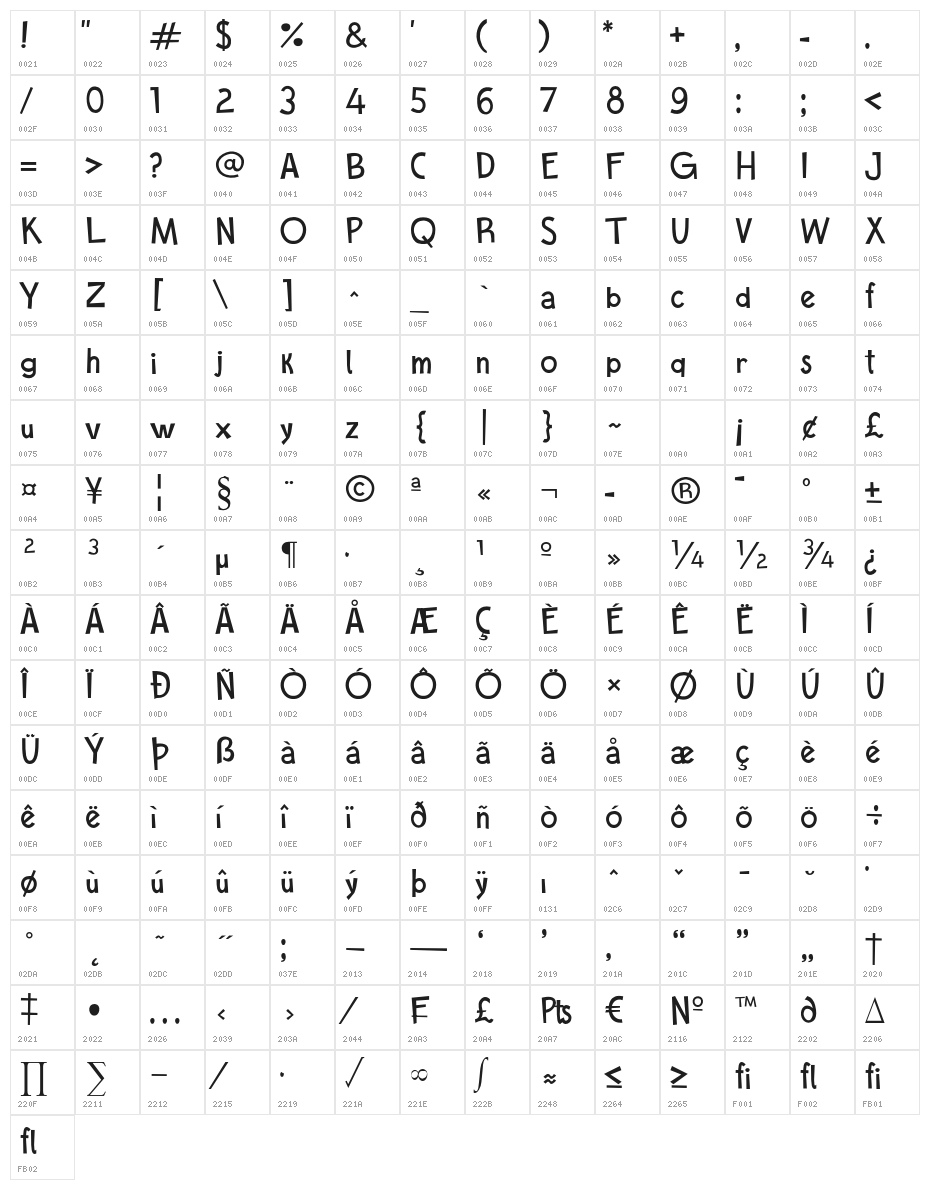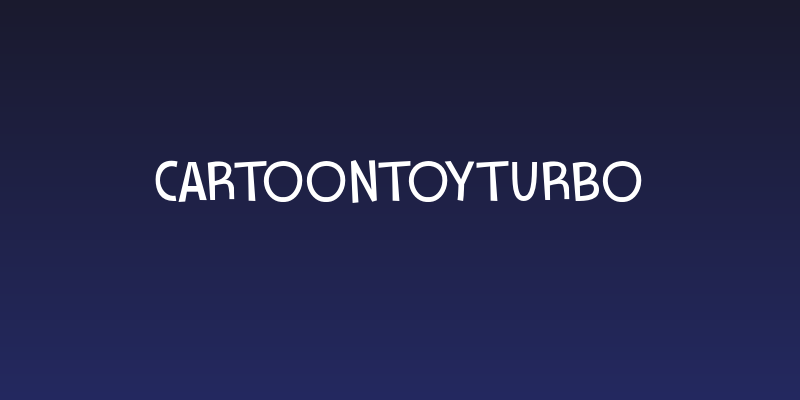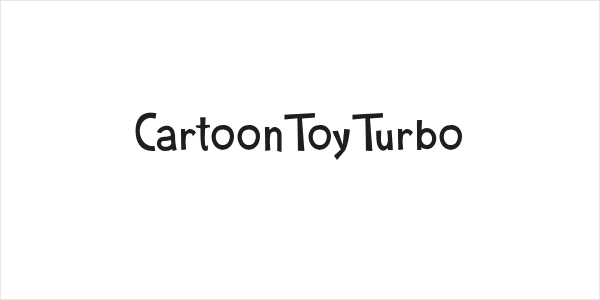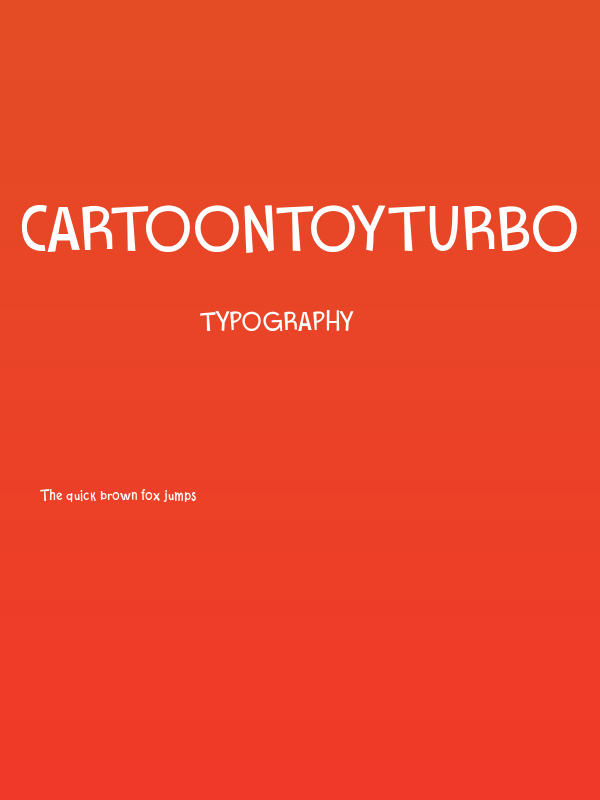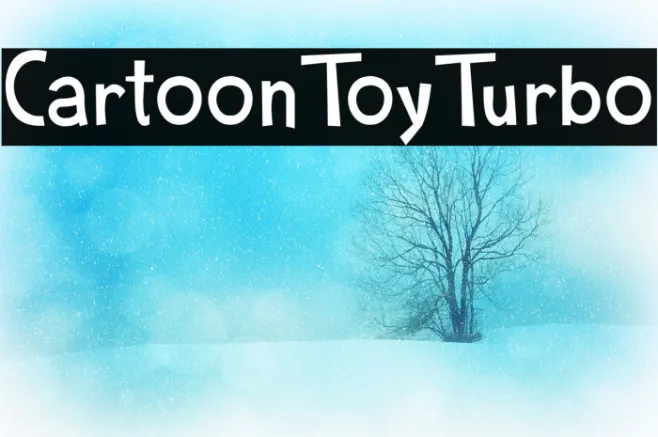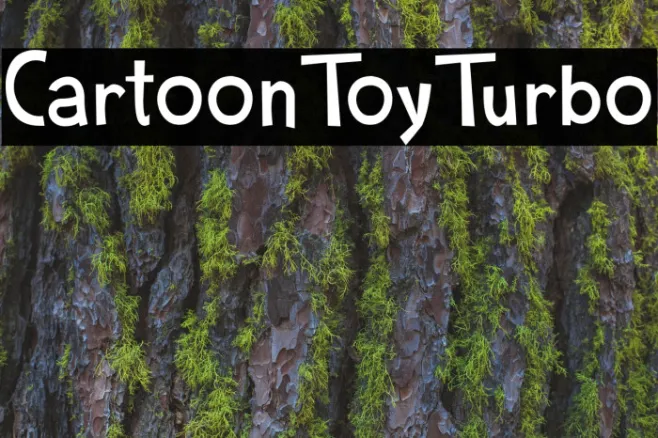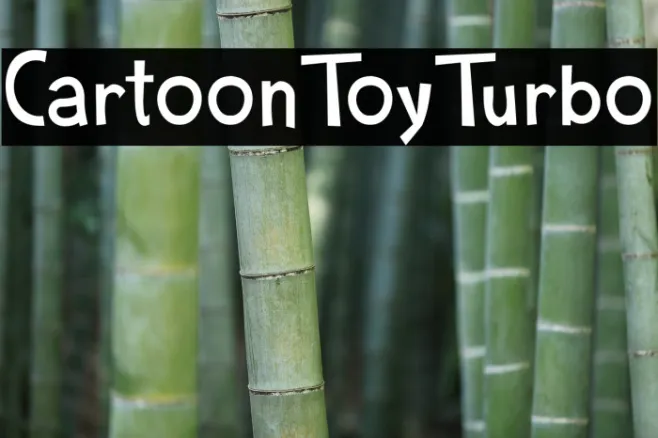
CartoonToyTurbo Font
CartoonToyTurbo Description
This playful and whimsical font features a hand-drawn style with irregular, slightly exaggerated letterforms that give it a fun and informal appearance. The characters are bold and rounded, with a slight tilt that adds to the dynamic and lively feel. The uppercase and lowercase letters maintain a consistent style, while the numerals and special characters complement the overall playful aesthetic. The font's unique charm makes it ideal for projects that require a touch of humor and creativity, such as children's books, cartoons, and playful branding. Its boldness ensures readability while maintaining a casual and approachable tone.
| Proposed Projects | Ideal for children's books, cartoons, playful branding, and creative projects. |